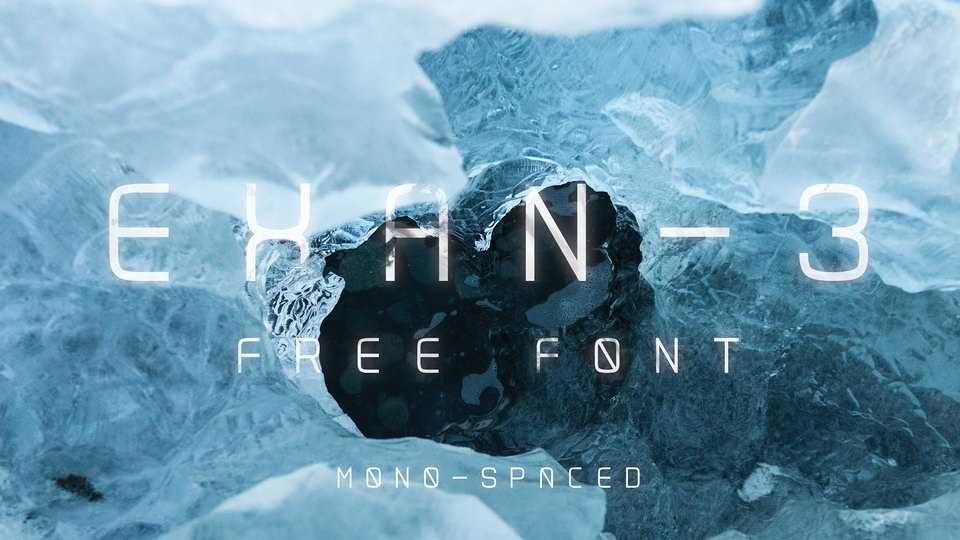
Download Exan 3 font is a monospaced clean and minimal font sans, great for tech, digital and sci fi related projects, headlines, posters, bannes and other creative designs.